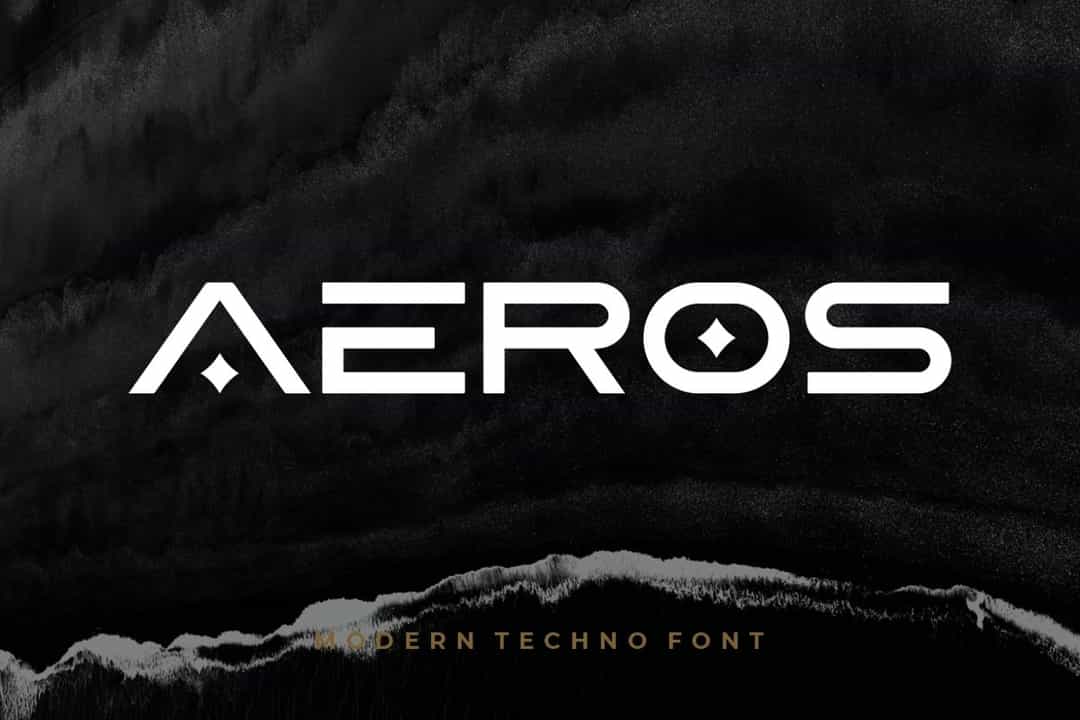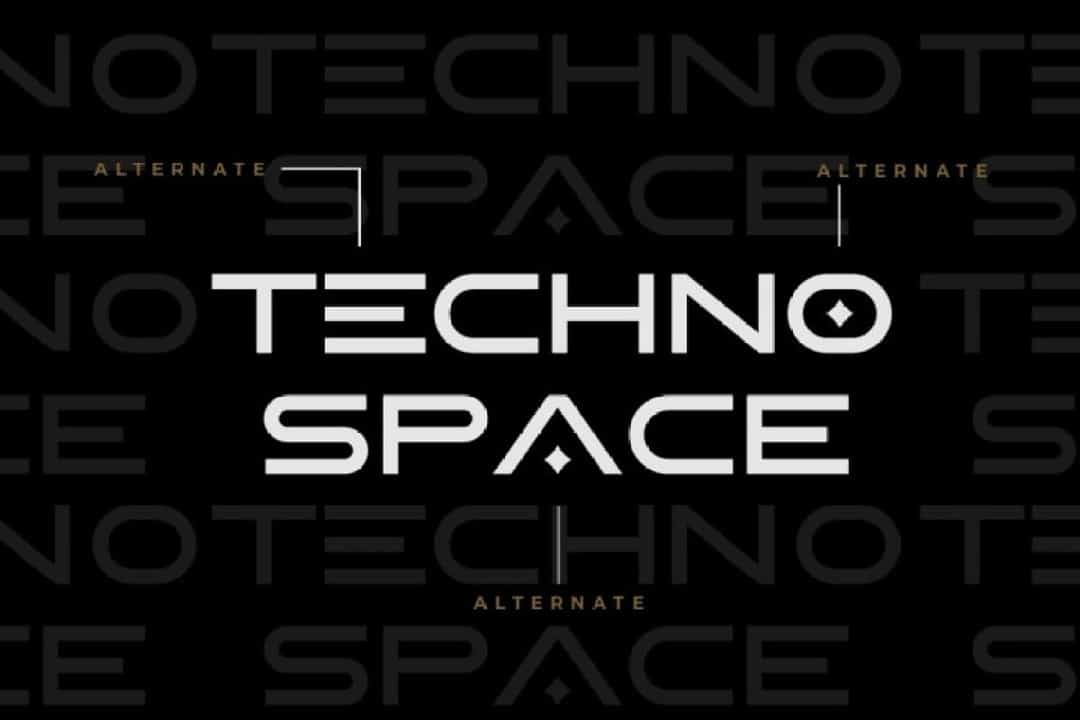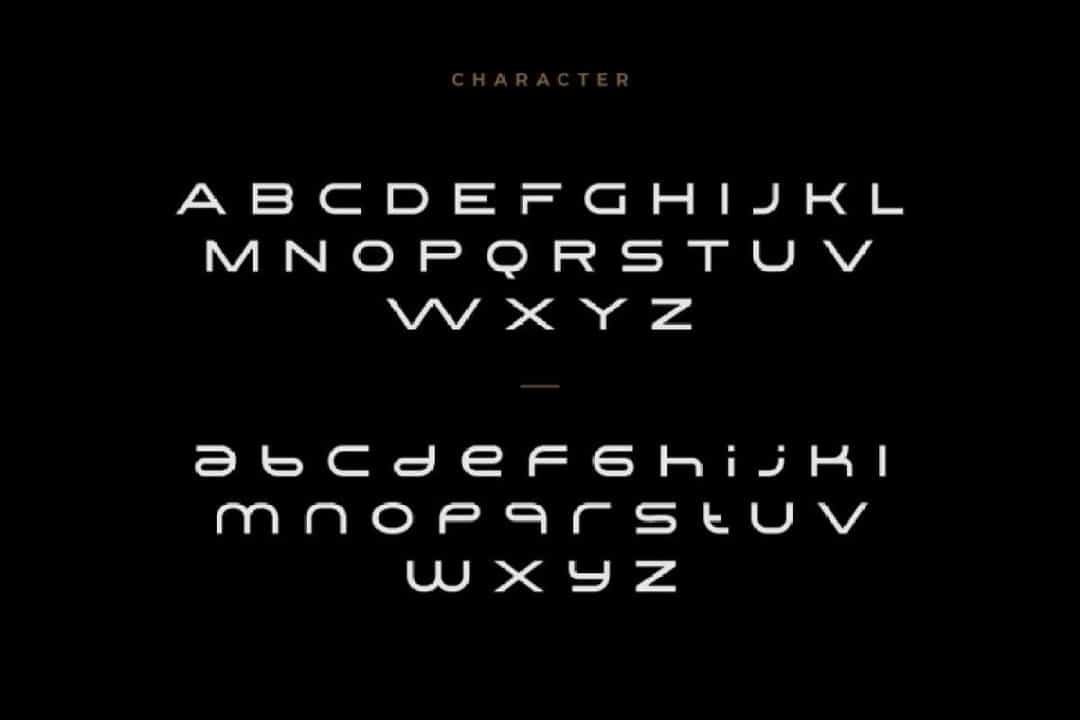
The Aeros Techno Font has got a professional and simple look that is easy to work with. This font can be used for logo designs, package designs, quotation or book invitation designs among other uses. It can be in uppercase and lowercase letters and numerals , punctuation , symbols and punctuation and multi-lingual support.